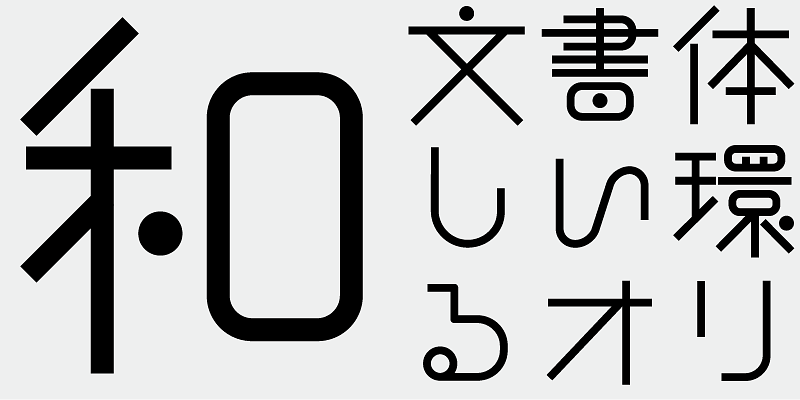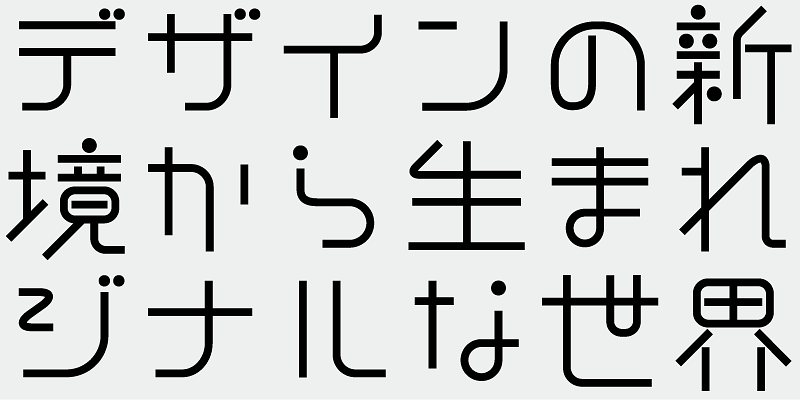
A friend of AB-Kakashi-kun, designed with a soft impression.
This font includes the top 1,000 kanji characters selected from usage frequency lists compiled by newspaper companies, publishers, and the National Institute for Japanese Language and Linguistics, plus 206 additional characters such as kana, alphanumerics, and carefully selected symbols and punctuation marks.